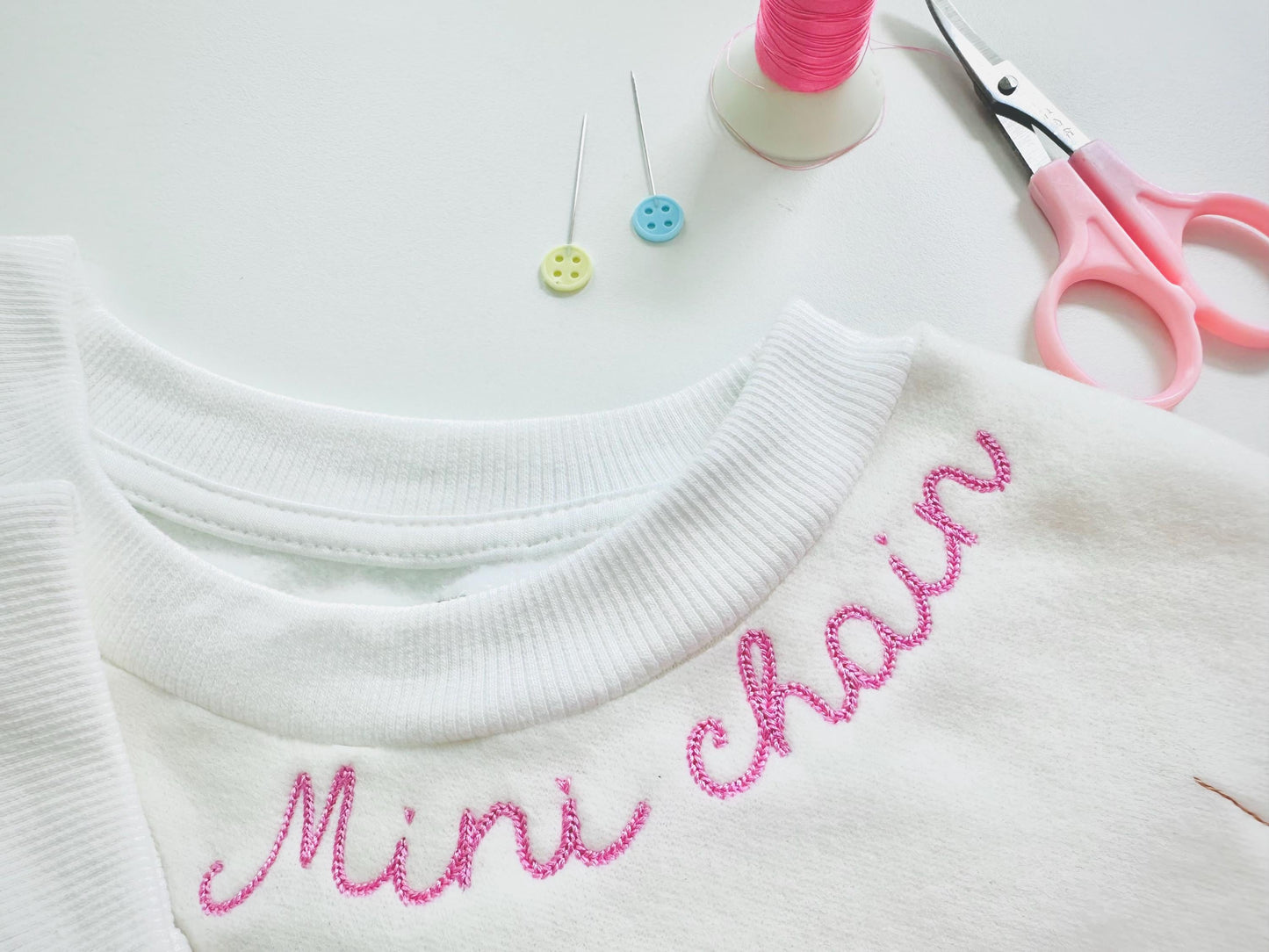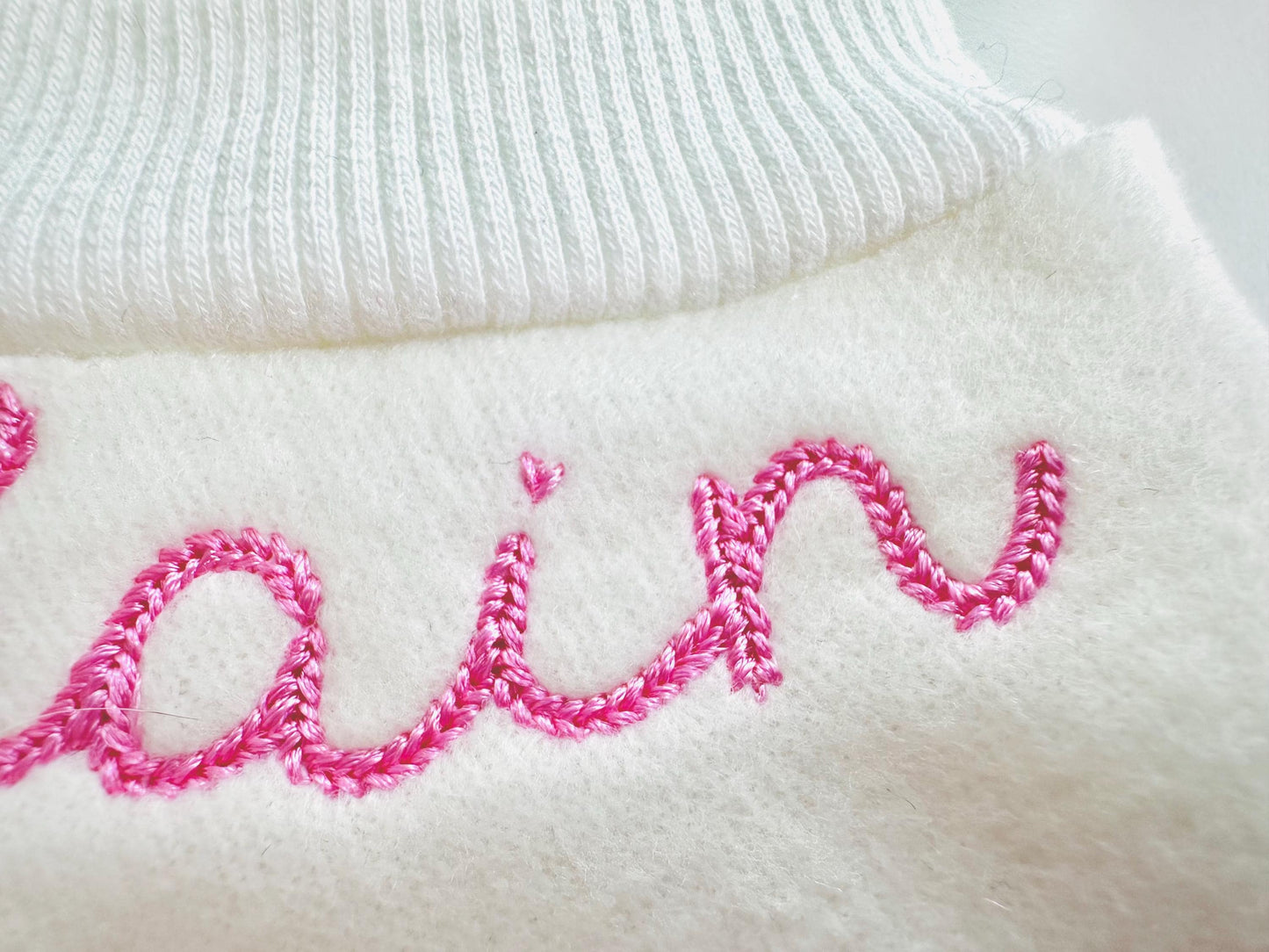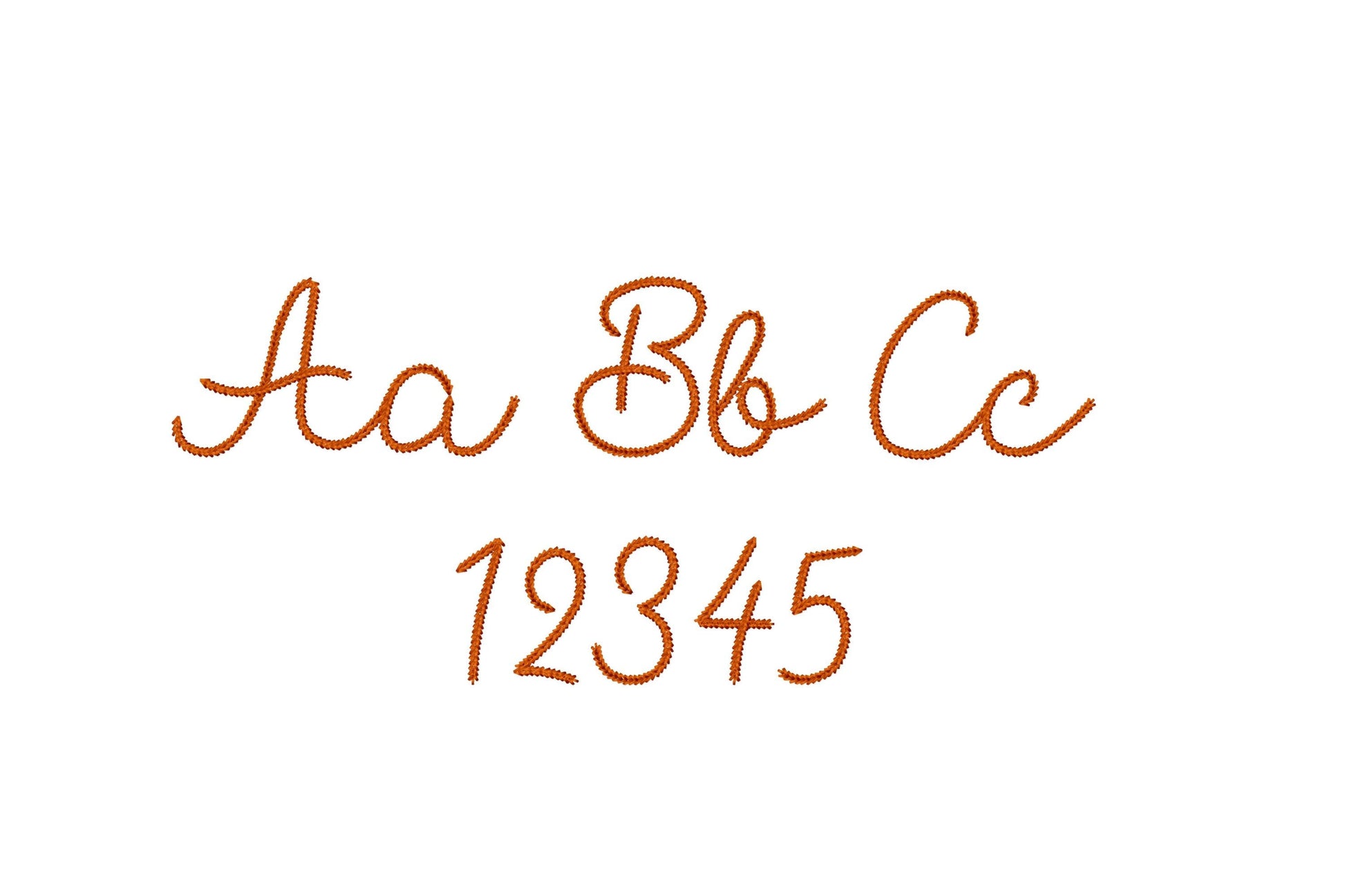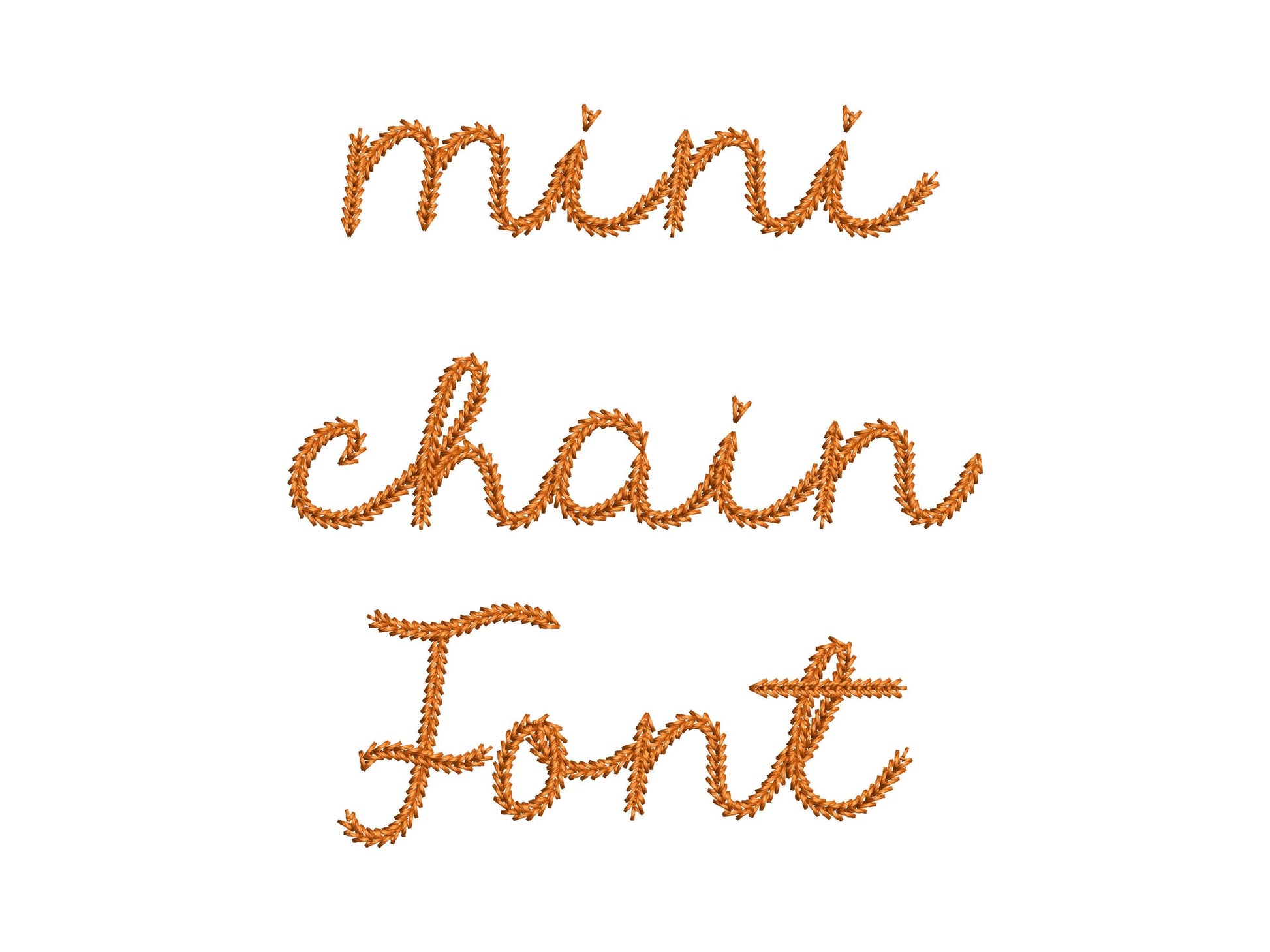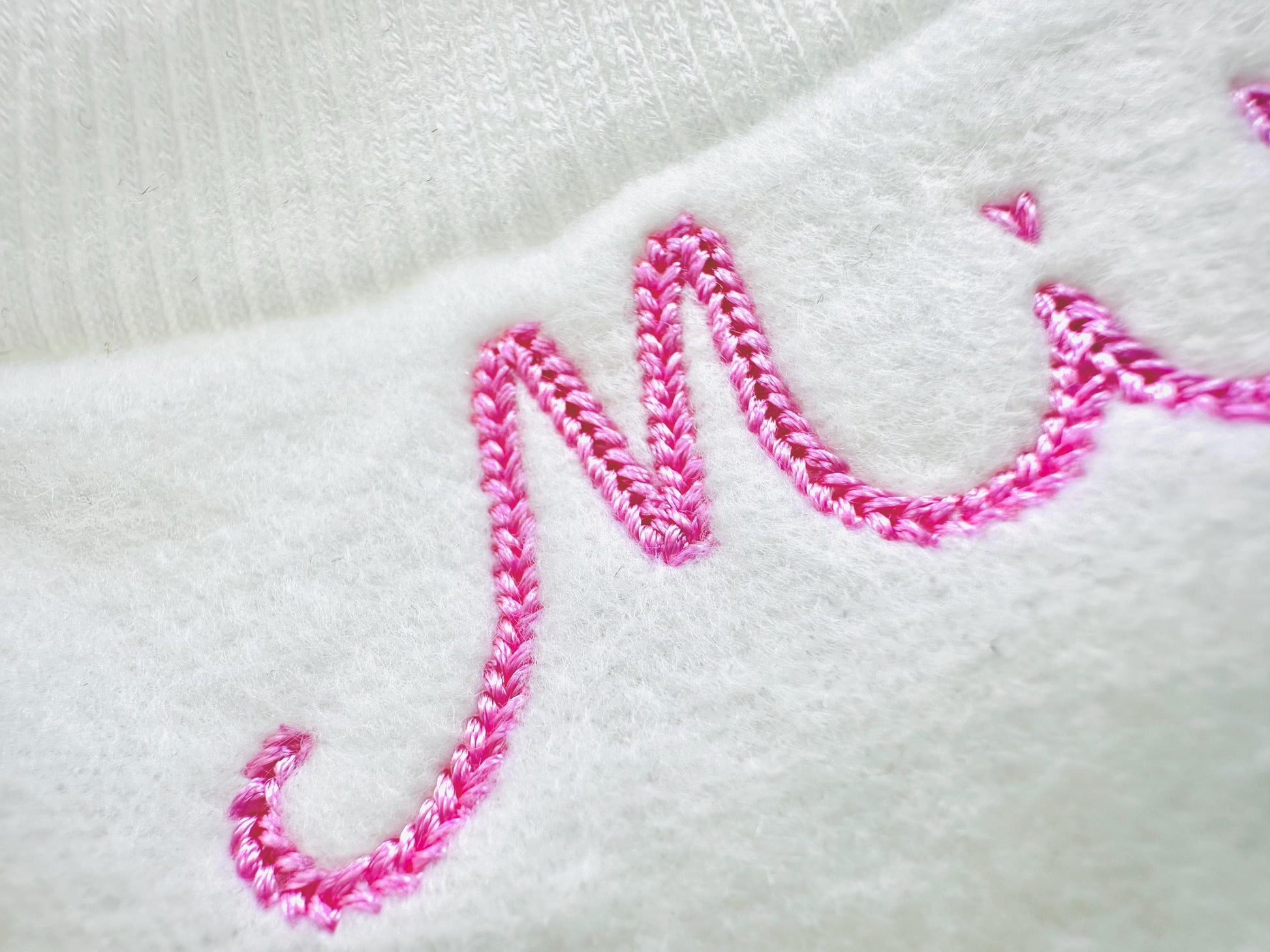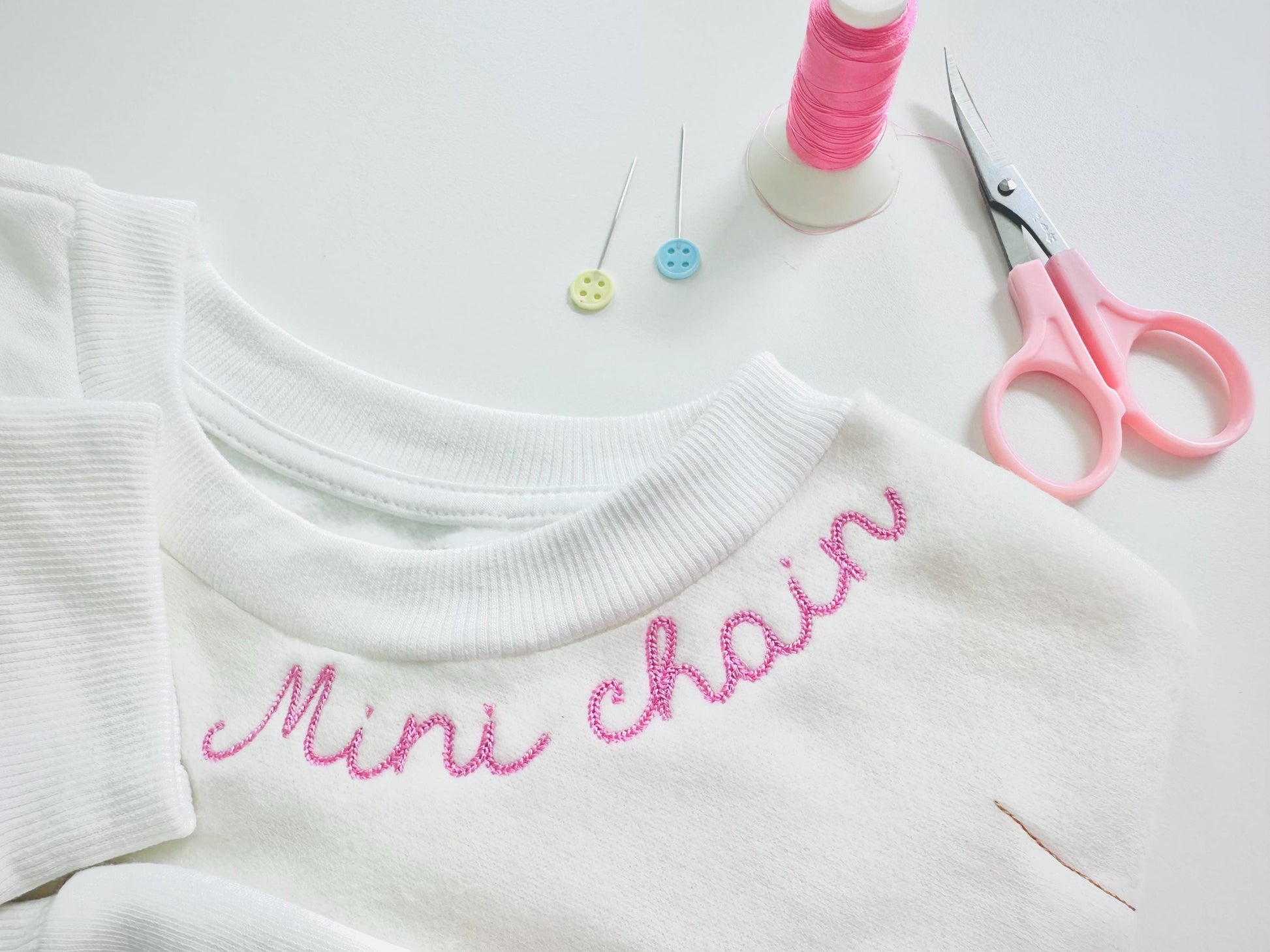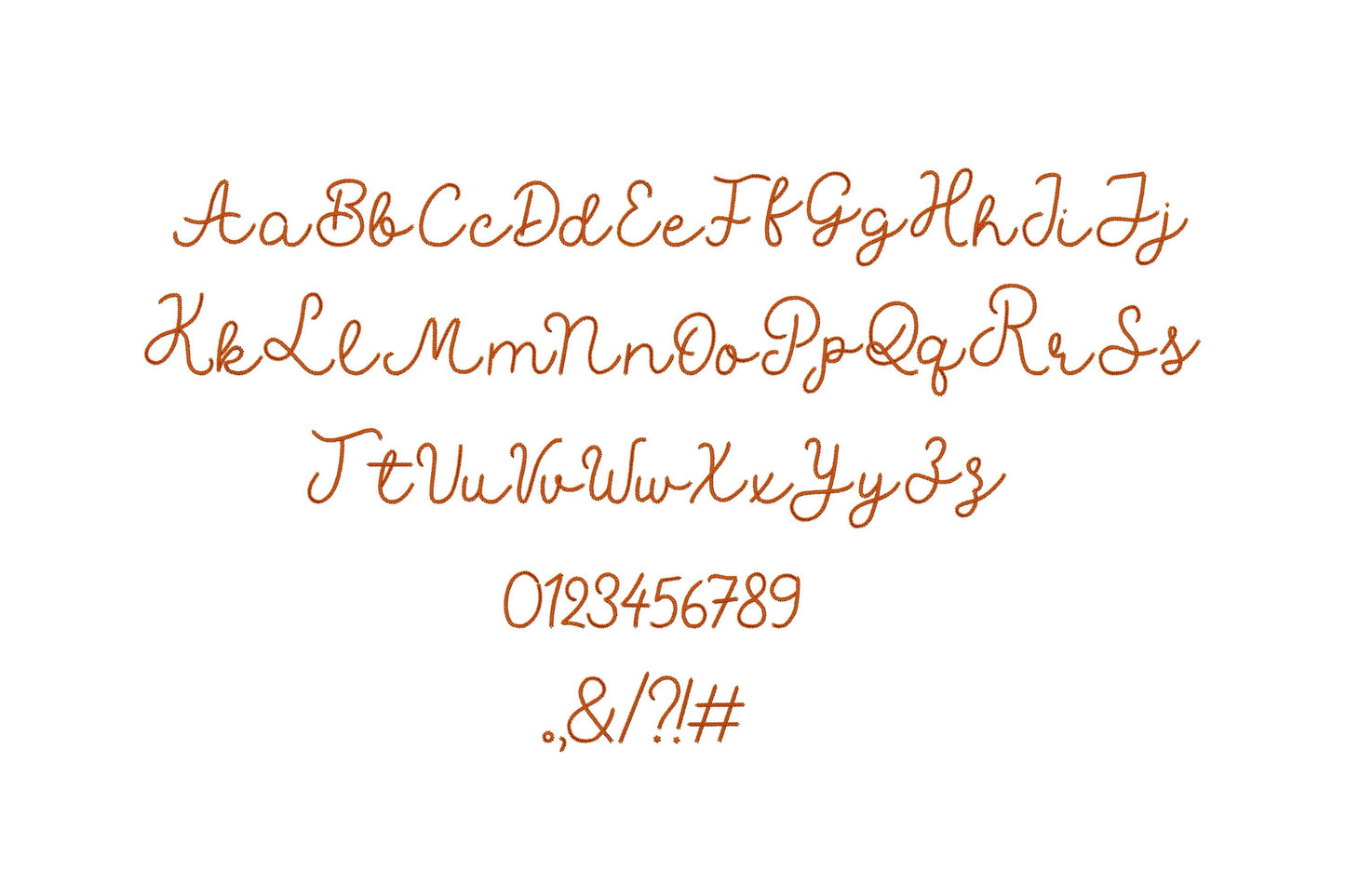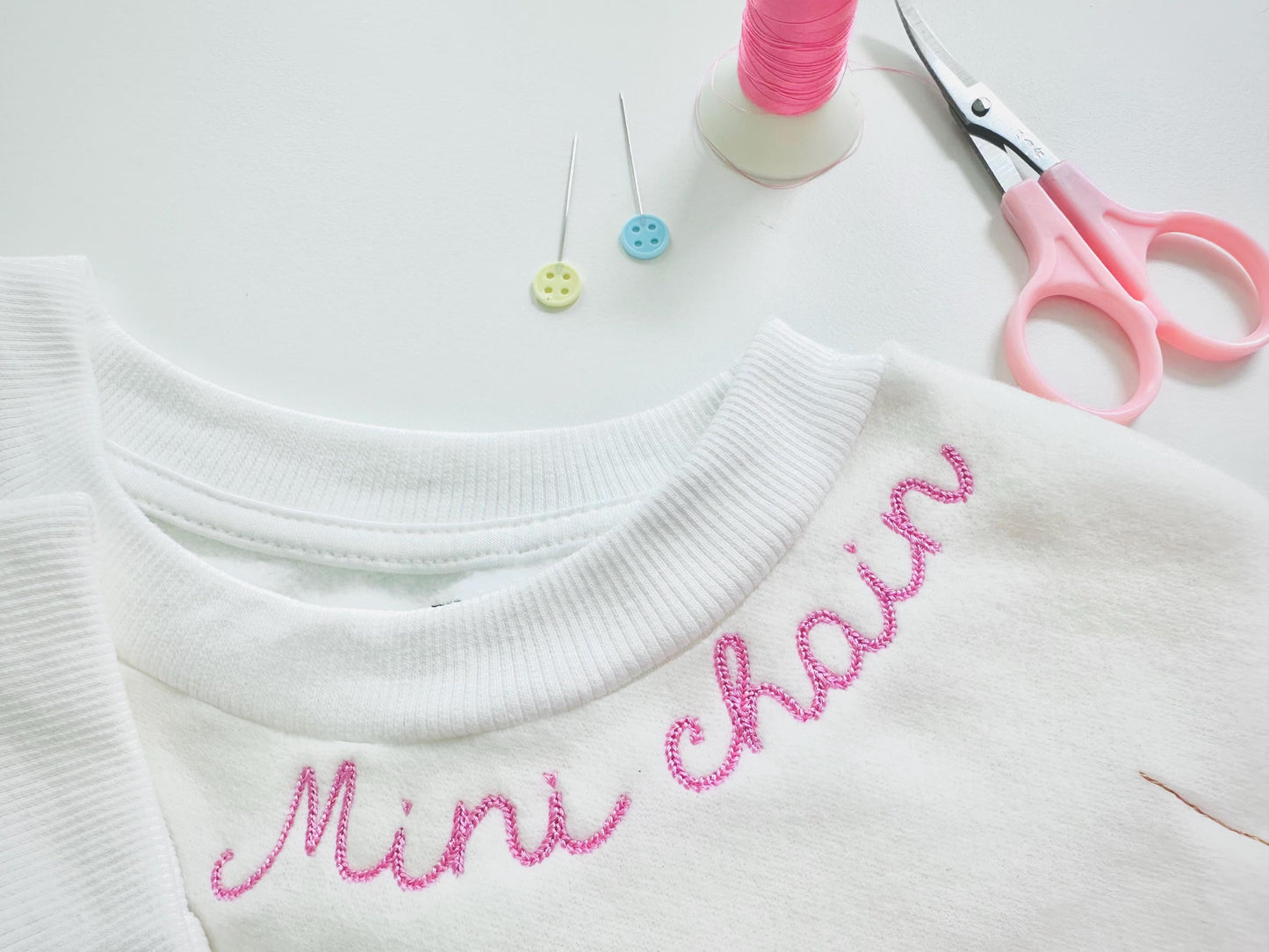
Love this font! It stitches out very pretty!
This font stitched out great!
Nice and clean stitching !
Stitched out beautifully, very pleased.
It stitched out great! Love it!
Item stitched out so cute.
Stitched out beautifully on my shirts. I used the smallest font, I believe it is .6”.
me encantan estas letras son hermosas y las dimensiones para mi proyecto es perfecto love
love this font so cute
Loved the lettering. Came out very pretty.
Great font, stitches out beautifully.
Cute font, stitched out great!
Nice product . Stitched great.
Love how this looks handsticthed!
Lovely font, stitches out great and looks so pretty
Stitched out beautifully! Thank you!
Stitched out perfectly. Nice font, I used it for a family tree
Stitched out well on my t-shirts!